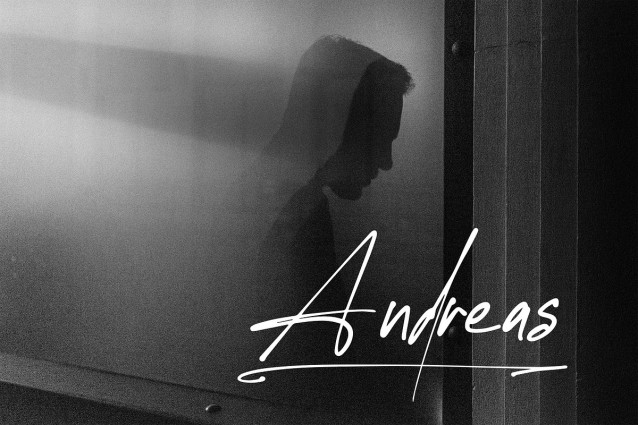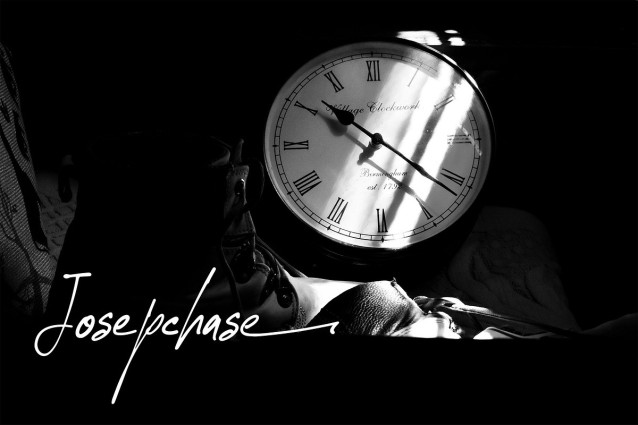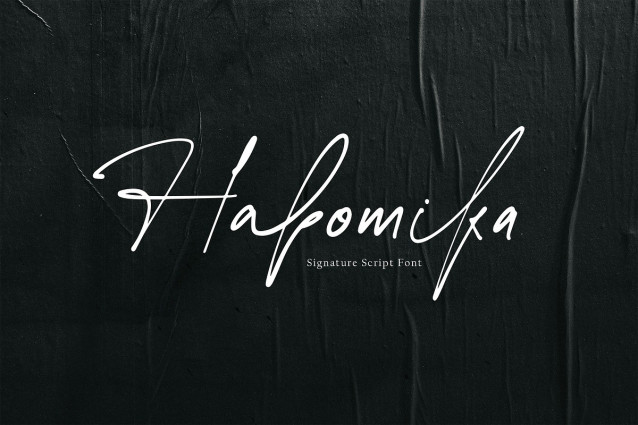
Habomika Signature Font
Habomika Signature Font is a script font with signature style. Is a font style that is made with unique shapes font characters are really good. Can be applied to support the graphic appearance of the product to be more attractive.